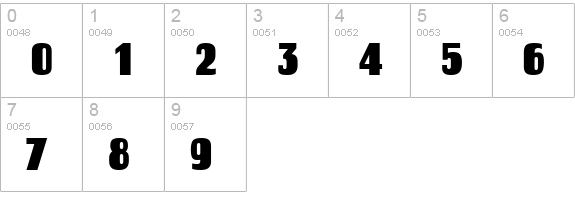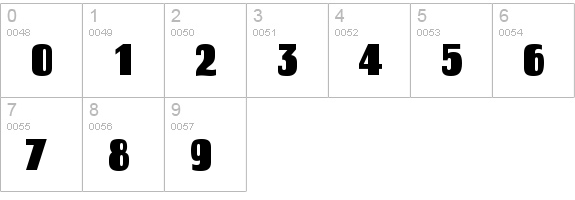
Einhorn ICG Font Details
Einhorn ICG is a versatile and elegant font that exudes sophistication and charm. Its classic yet modern design makes it perfect for a wide range of projects, from branding to editorial design. With its clean lines and balanced proportions, Einhorn ICG is a timeless choice that will elevate any design it is used in. What sets Einhorn ICG apart is not only its beauty, but also the fact that it is completely free to download. Yes, that's right - this stunning font can be yours at no cost! Simply head over to FontsMarket.com to access this amazing typeface and enhance your creative projects with its unique style. Whether you're a designer looking for a new favorite font or just someone who appreciates quality typography, Einhorn ICG is sure to impress. Don't miss out on the opportunity to add this exceptional font to your collection - download it for free today at FontsMarket.com!